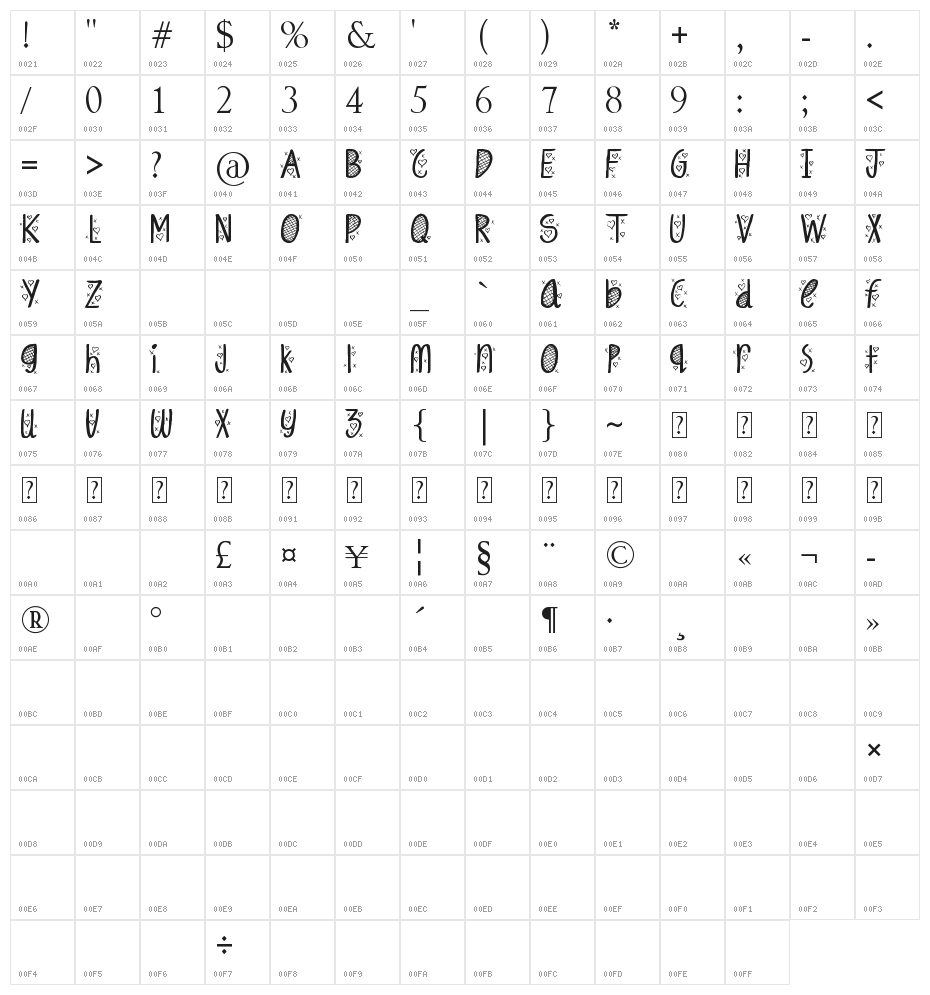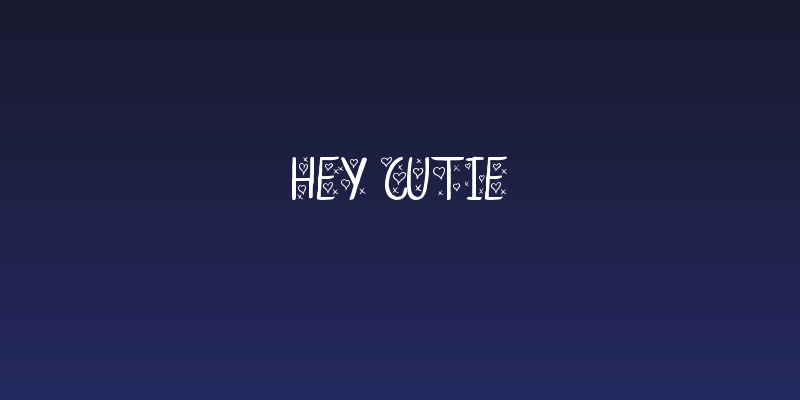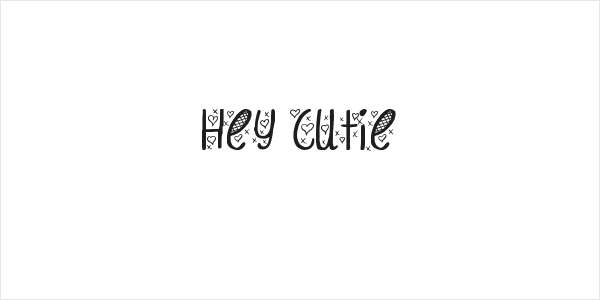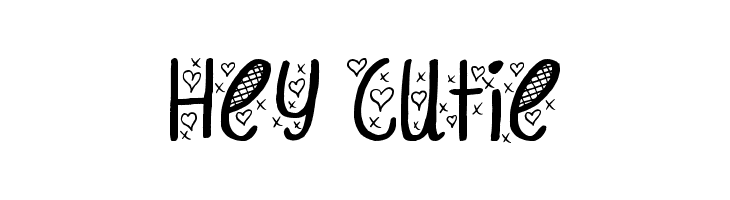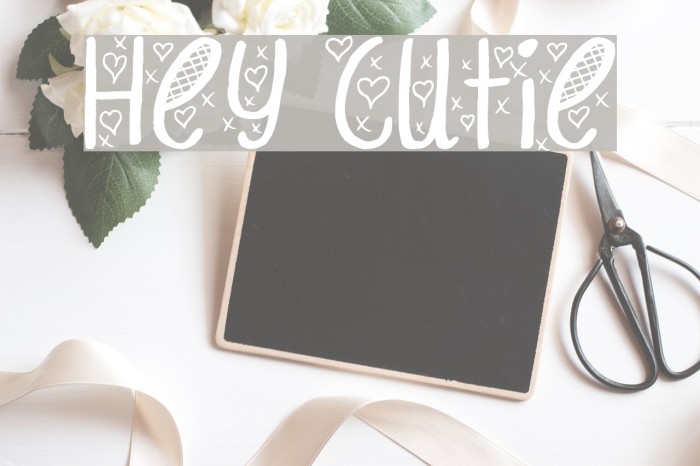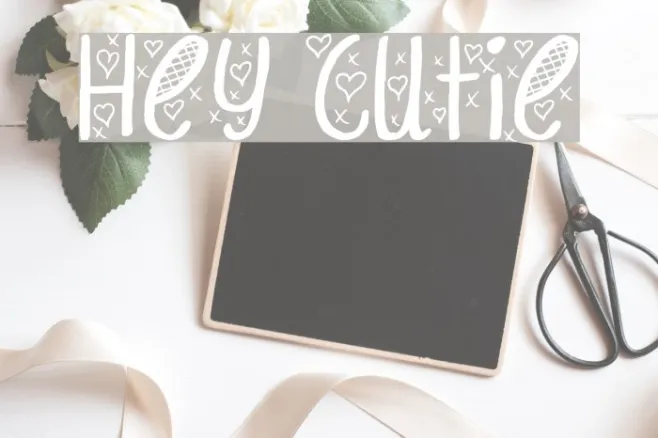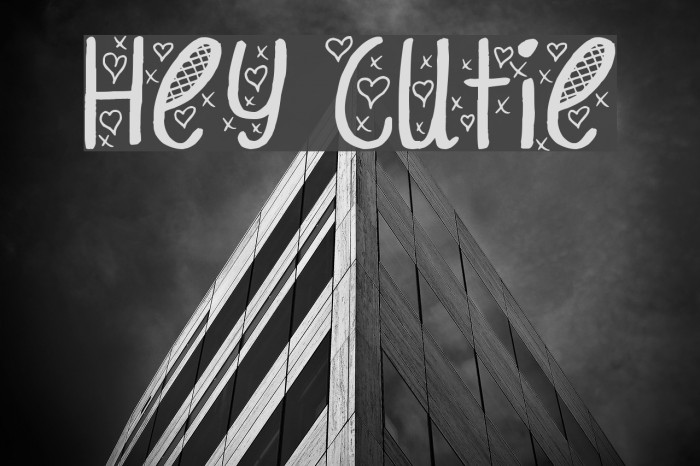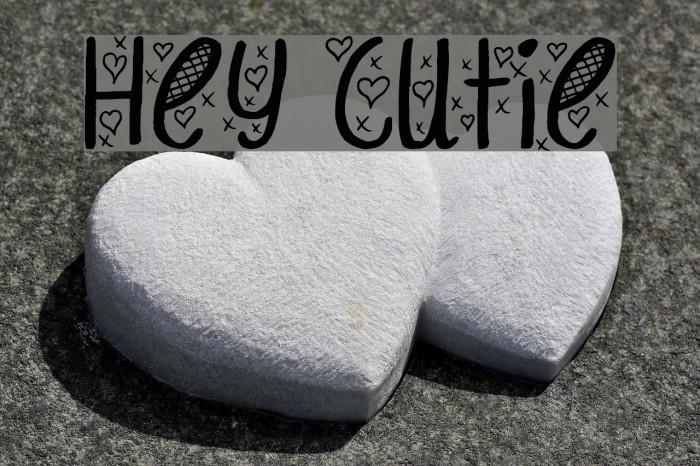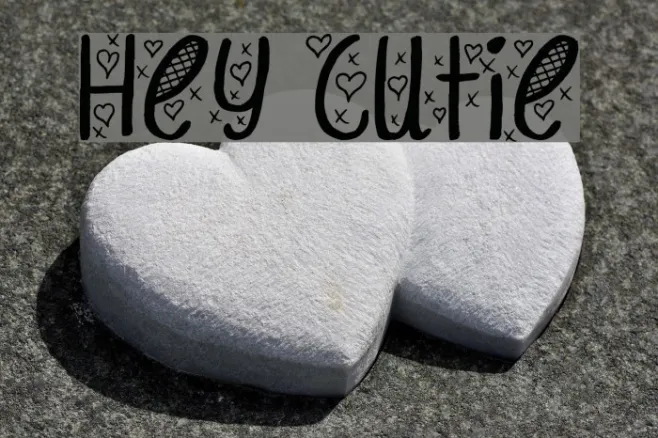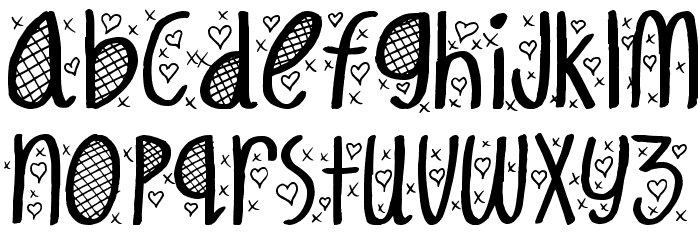
Hey Cutie Font
Hey Cutie Description
This playful and whimsical font features a unique design with heart and cross motifs integrated into the characters. The uppercase letters are bold and eye-catching, with some letters filled with patterns, adding a decorative touch. The lowercase letters maintain a consistent style, complementing the uppercase with their rounded and friendly appearance. Numbers are clear and distinct, while special characters carry the same playful theme, making this font perfect for creative and fun projects.
HEY-CUTIE UPPERCASE
HEY-CUTIE LOWERCASE
HEY-CUTIE OTHER CHARS
| Proposed Projects | Ideal for children's books, greeting cards, playful branding, and party invitations. |